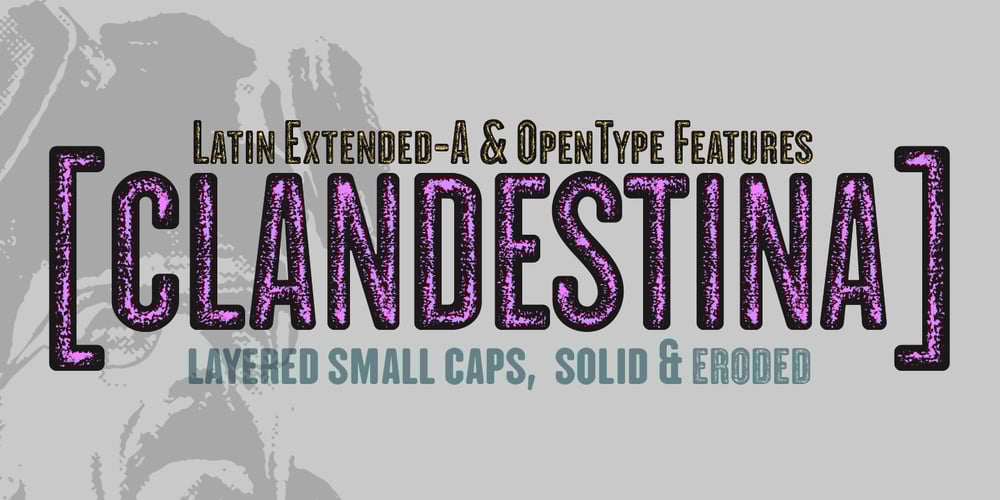
CLANDESTINA Font Family was designed by Fernando Haro and published by deFharo. CLANDESTINA contains 2 styles and family package options. Two sans serif extra condensed fonts, small caps, solid and eroded, combinable with each other by layers to create purely typographic titles in two colors. Clandestine copies derived from my previous font sans serif H.H. Samuel, i have reviewed and optical corrections applied in all characters and I set the kerning completely after creating the small caps versions of the original lowercase letters and numbers. ==================== The Commercial version includes: – 2 fonts (solid & eroded). 403 glyphs. Latin Extended-A • OTF & TTF – Clandestina fonts can be used unlimited for both Commercial and Personal projects. – The download file includes a PDF with the specimen sheet of typography. – Includes a simplified version without diacritical accents for the English language. – OpenType features compatible with: Photoshop, Illustrator, QuarkXpress, Indesign. – OpenType Functions: Small Capitals, Oldstyle Figures, All Alternates, Additional languages, Capital Spacing, Superior letters, Standard Ligatures, Slashed Zero, Discretionary Ligatures, Ordinals, Numerators, Numbers Small Caps, Localized Forms, Kerning. – Bitcoin symbol: b# (ligatures)